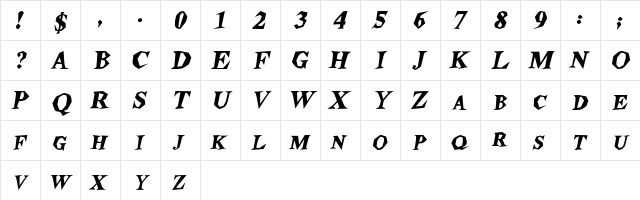
Stegosaurus HeavyItalic
Design Context for Stegosaurus Typeface
Stegosaurus is a composed and adaptable typeface that performs quietly and consistently across a wide range of design contexts. The dynamic lean of this cut emphasises speed and emphasis in any layout.
Pro Tip: Use Stegosaurus for emphasis, pull quotes, and subheadings where its slanted energy can add rhythm to the layout.